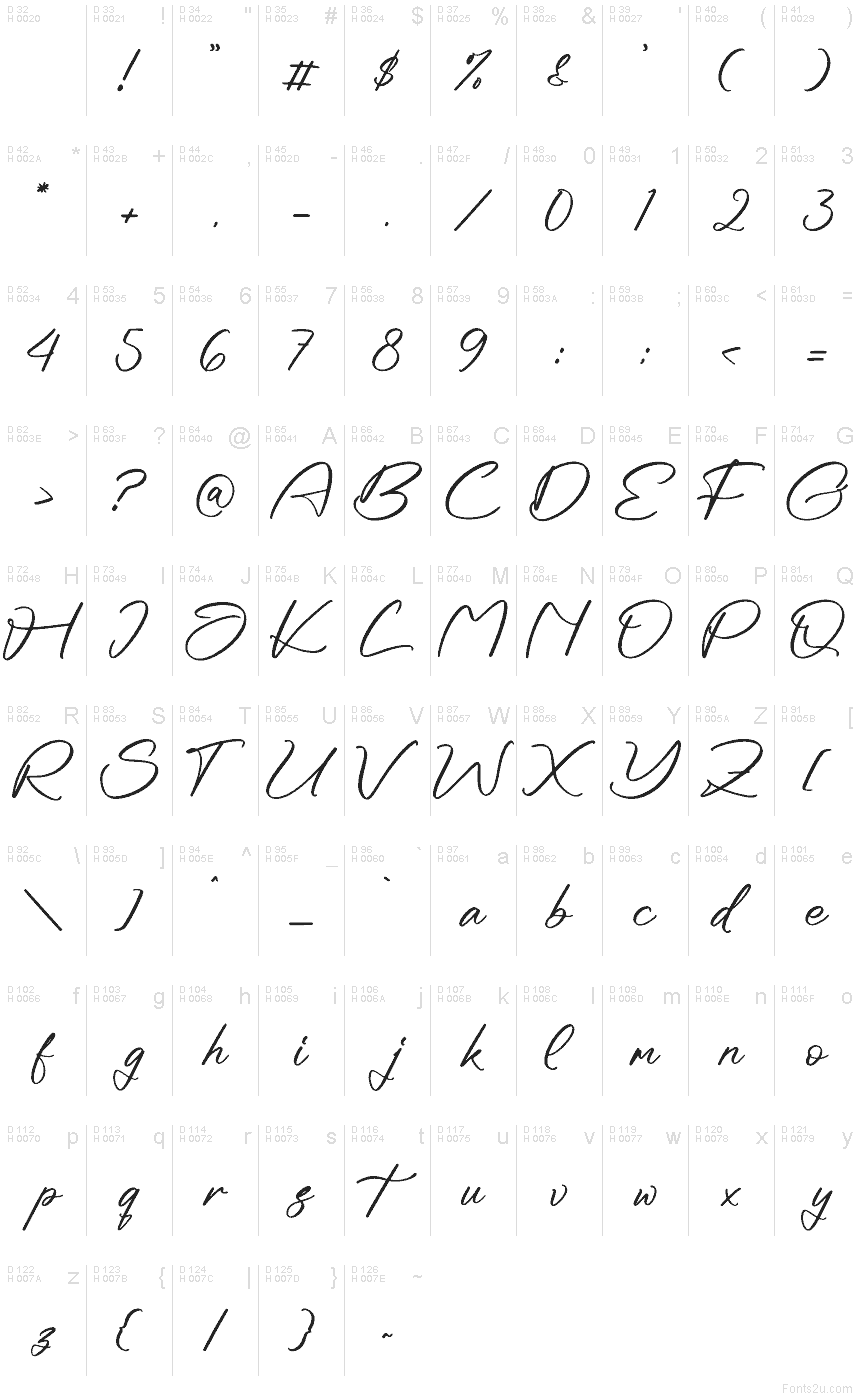
Jejak Cintta
Jejak Cintta font is a free handwritten font from Letterena Studio. The expressive letters and nice flow add a personal touch to the design, and the elegant appearance showcase a modern script style that deserves your attention! You can download this resource in TTF file format which guarantees compatibility of each letter with all design applications.
Logo design projects are one area this font can be used for, along with visual identity items like business cards. Use it on company-level marketing materials such as posters, flyers, and chicken menus or on product labels and packages for general use (e.g., beverages).